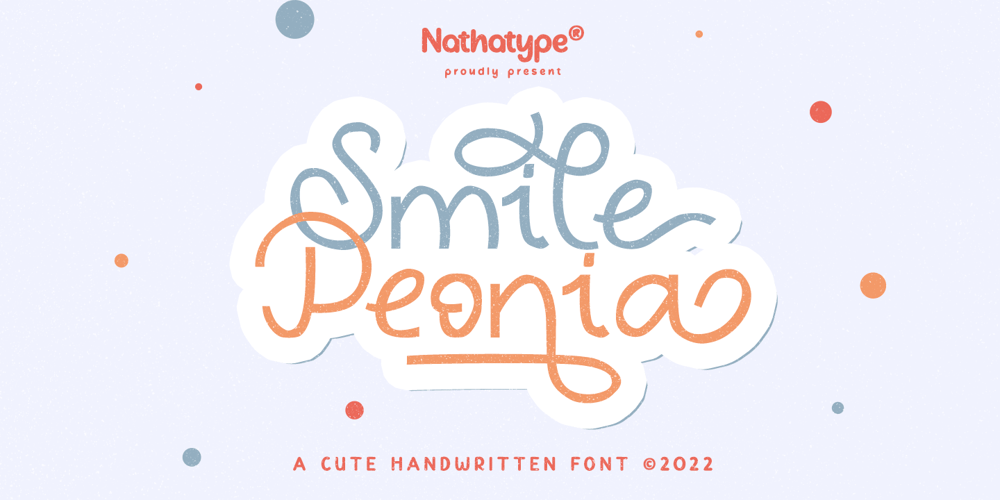
Smile Peonia Font Family was designed by Donis Miftahudin and published by Nathatype. Smile Peonia contains 1 styles and family package options. Want to enchant your audiences clients, or guests? If you have a dream to create an awesome branding for your business, work on a poster for an event, or whatever your project is-then we’ve got what you want.Smile Peonia-A Handwritten FontSmile Peonia is a handwritten font designed with curvy style to add fun style. This font is also support multi languages to make your branding globally acceptable. Smile Peonia can be used for various purposes such as headings, signatures, logos, quotes, wedding invitations, t-shirts, letterheads, signage, labels, posters, badges etc.Features: Ligatures Stylistic Sets PUA Encoded Numerals and Punctuation Thank you for purchasing premium fonts from Natha Studio. Happy Designing!